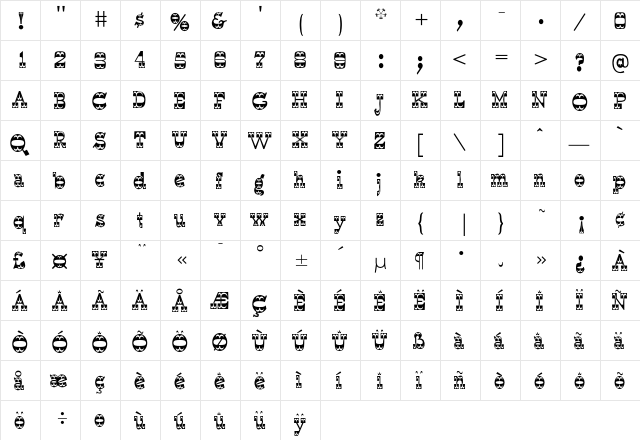
Dalton Regular
Design Context for Dalton Typeface
Dalton is a composed and adaptable typeface that performs quietly and consistently across a wide range of design contexts.